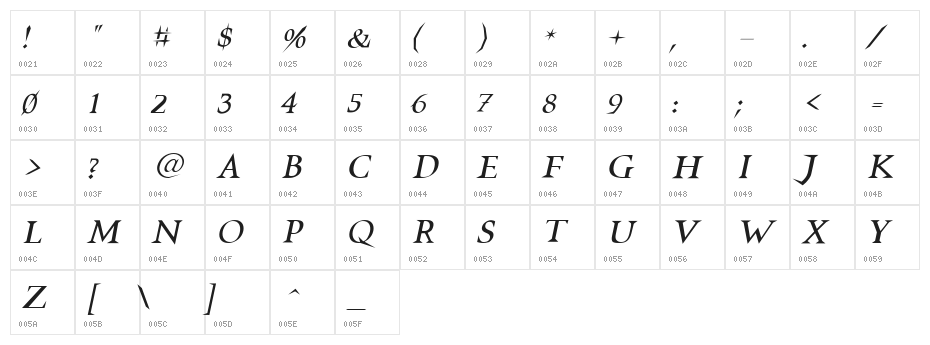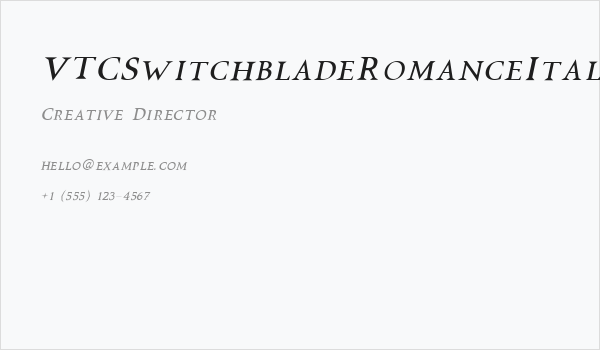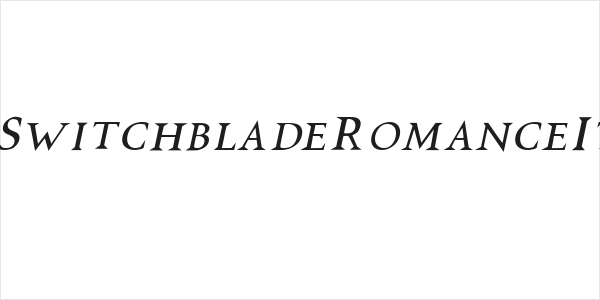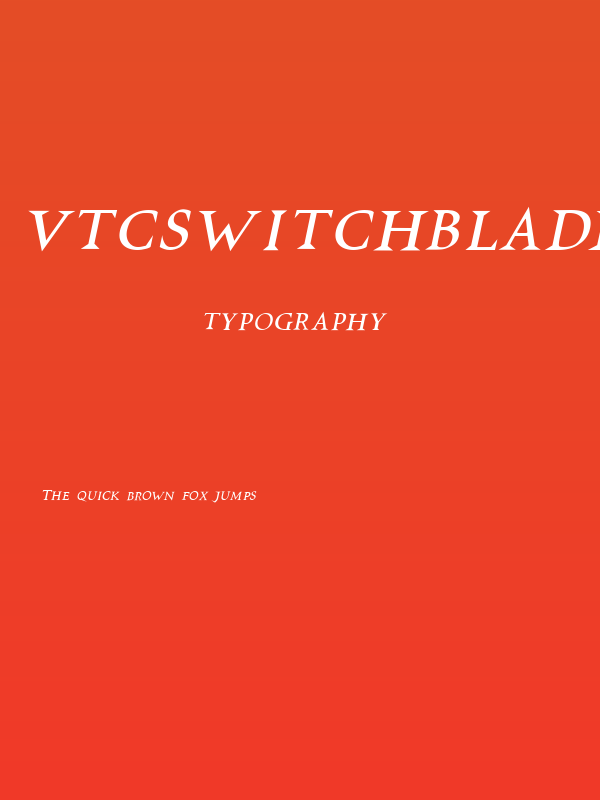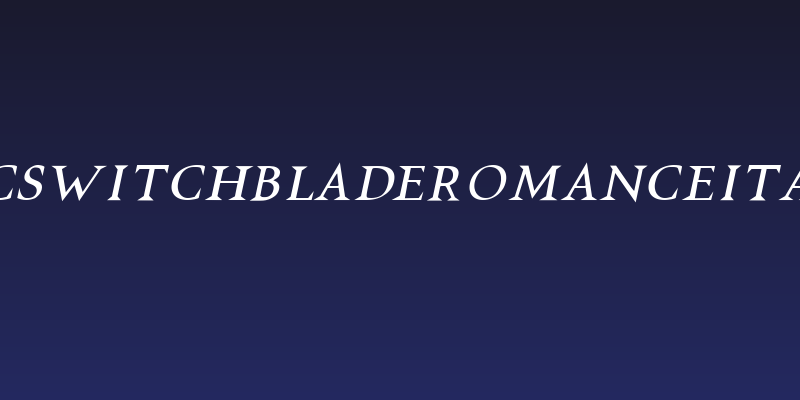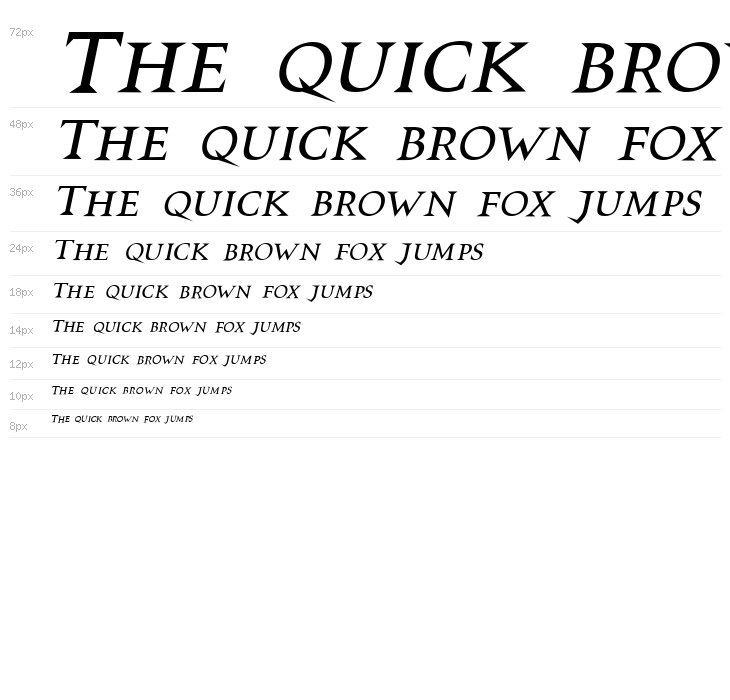
VTCSwitchbladeRomanceItalic Font
VTCSwitchbladeRomanceItalic Description
This font features a dynamic and edgy style, characterized by sharp, angular serifs and a pronounced italic slant. The uppercase letters exhibit a strong presence with their elongated forms and pointed terminals, creating a sense of movement and intensity. The lowercase letters maintain this angularity, offering a cohesive look throughout the typeface. Numbers are bold and consistent with the overall aesthetic, while special characters are designed to complement the font's unique style. The font's distinctive appearance makes it suitable for projects that require a bold and dramatic impact.